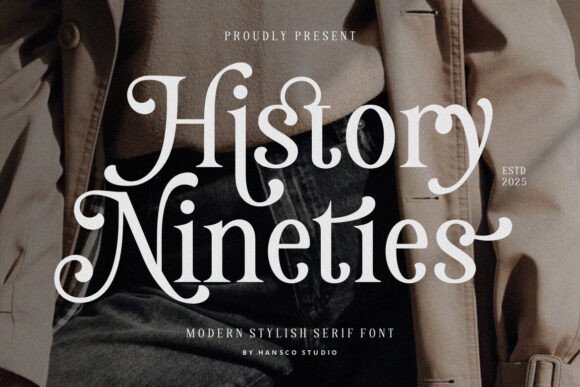
History Nineties Font: A Timeless Elegance for Modern Designs
The History Nineties Font is a stunning display serif font that embodies the perfect blend of femininity, retro charm, and elegance. This beautiful font is designed to make your designs stand out, particularly for those seeking something unique and distinctive. With its smooth swash style and intricate details, History Nineties is an excellent choice for various design projects, including branding, logo designs, logotypes, crafts, posters, packaging, and more.
The Inspiration Behind History Nineties Font
The History Nineties Font draws inspiration from the fashion and design trends of the 1990s, an era known for its bold, playful, and expressive style. The font’s creator aimed to capture the essence of this iconic period, infusing it with a modern twist to make it relevant for contemporary designs. The result is a font that exudes a sense of nostalgia while maintaining a fresh and sophisticated appeal.
Key Features of History Nineties Font
- Feminine and Retro Style: History Nineties Font boasts an incredibly feminine and retro aesthetic, making it perfect for designs that require a touch of elegance and sophistication.
- Elegant Feel: Despite its bold and playful nature, the font maintains an elegant feel, suitable for a wide range of design applications.
- Smooth Swash Style: Each character in the font features a smooth swash style, adding a touch of refinement and luxury to your designs.
- Alternative Characters: The font includes several alternative characters for lowercase, uppercase, and ligature, providing you with a wide range of creative options.
- Multilingual Support: History Nineties Font comes with multilingual support, making it an excellent choice for global brands and designs.
Design Applications for History Nineties Font
History Nineties Font is a versatile typeface that can be used in various design projects, including:
Branding and Logo Designs
Create a lasting impression with History Nineties Font, perfect for branding and logo designs that require a unique and memorable touch. The font’s elegant and feminine style makes it suitable for businesses and organizations in the fashion, beauty, and lifestyle industries.
Logotypes and Wordmarks
History Nineties Font is ideal for logotypes and wordmarks that require a smooth, sophisticated, and high-end feel. The font’s intricate details and swash style make it perfect for creating custom logotypes that stand out.
Posters and Flyers
Add a touch of elegance and sophistication to your posters and flyers with History Nineties Font. The font’s bold and playful nature makes it perfect for eye-catching headlines and titles.
Packaging Design
History Nineties Font is an excellent choice for packaging design, particularly for luxury brands and products. The font’s smooth swash style and elegant feel make it perfect for creating premium and high-end packaging designs.
Tips for Using History Nineties Font
To get the most out of History Nineties Font, consider the following tips:
Pair with Neutral Fonts
Pair History Nineties Font with neutral fonts to create a balanced and harmonious design. This will help to highlight the font’s unique features and prevent the design from looking cluttered.
Experiment with Colors
History Nineties Font looks stunning in a variety of colors. Experiment with different hues and shades to find the perfect combination that complements your design.
Use for Headlines and Titles
History Nineties Font is perfect for headlines and titles. Use it to create eye-catching and memorable headings that grab attention.
History Nineties Font is a beautiful and modern display serif font that offers a unique blend of femininity, retro charm, and elegance. With its smooth swash style, intricate details, and alternative characters, this font is perfect for a wide range of design applications, from branding and logo designs to posters and packaging. Whether you’re a designer, entrepreneur, or creative, History Nineties Font is an excellent choice for adding a touch of sophistication and elegance to your designs.